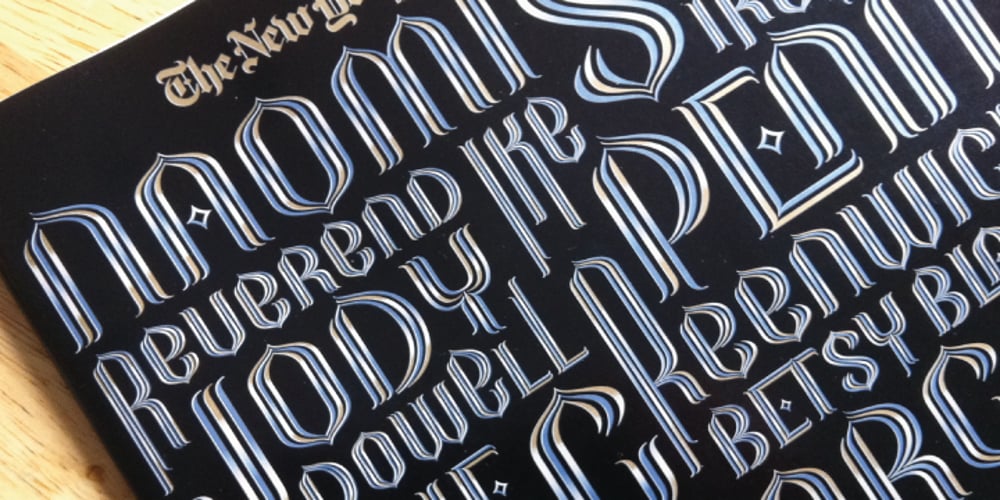
Crescendo Font Family was designed by Patrick Griffin, Nancy Harris Rouemy and published by Canada Type. Crescendo contains 1 styles and family package options. A year after the tremendous success of Memoriam in the “Lives They Lived” issue of the New York Times magazine at the end of 2008, Patrick Griffin and Nancy Harris Rouemy teamed up once more to tackle the same project for the 2009 issue. This time the magazine’s design concept revolved around a typeface they created specifically for custom vertical malleability, and that can play just as well in single- or multi-color environments. The result was another iconic commemorative issue that shows exotic tri-line letters merging, swashing, extending and flourishing in stunning gold, silver and blue on black on the cover, and in black on white on the inside pages. Just like in the previous year, the issue won multiple publication design and typography awards. Crescendo is that typeface, finally issued for retail by public demand. Just turn your setting into outlines in your favorite vector program, grab single strands and extend away, and do your best alternating colours between strands. Crescendo comes with a limited punctuation set, but accented characters for Western Latin languages are included, and there many, many alternates and ligatures in there as well. This typeface is best used in large display sizes.